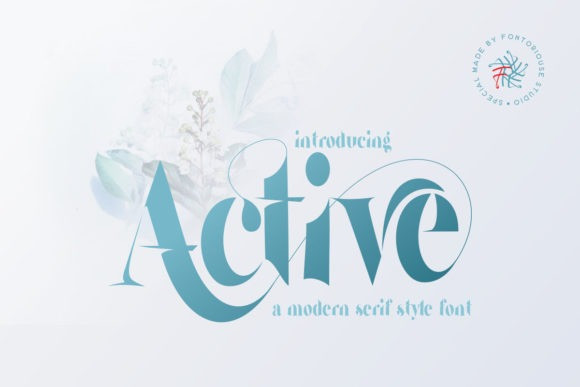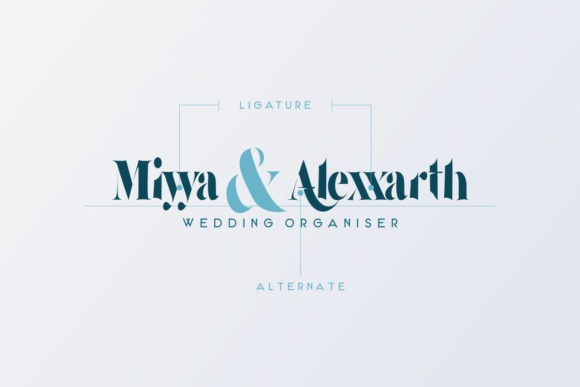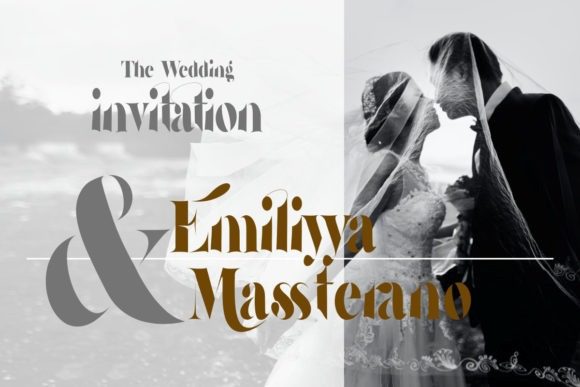
Active Font
Active is a luxurious and stylish serif font. It is PUA encoded which means you can access all of the glyphs and swashes with ease! Add it confidently to your projects, and you will love the results.